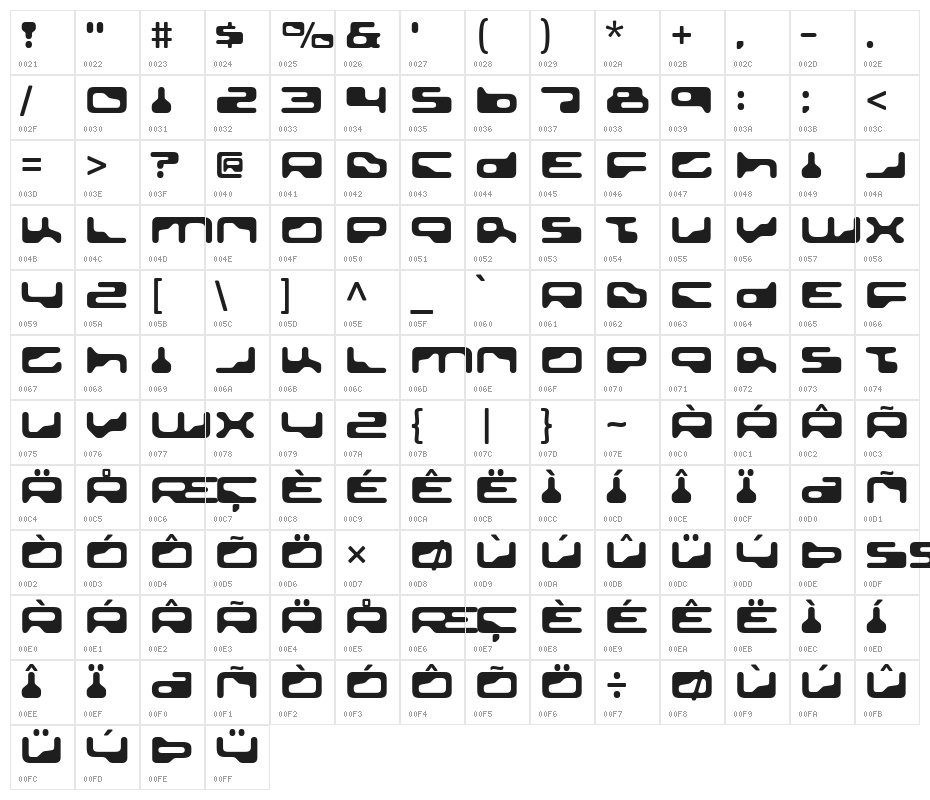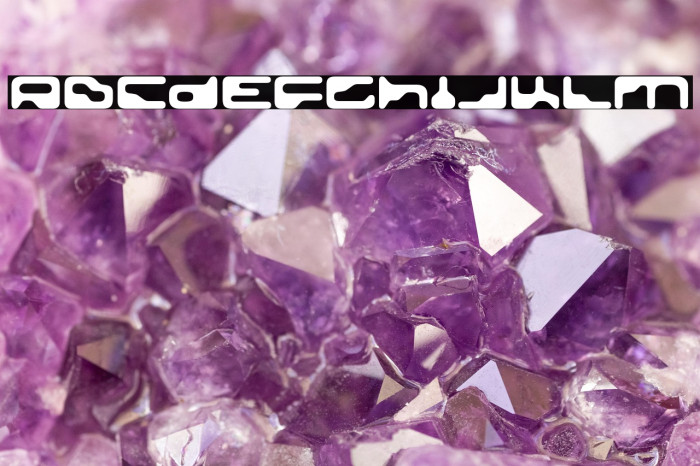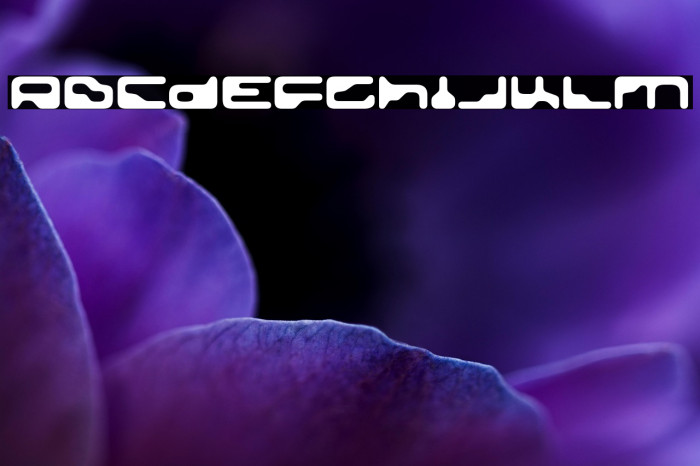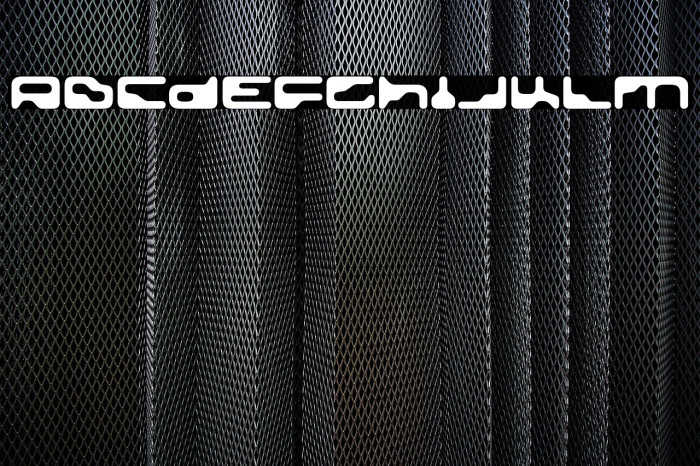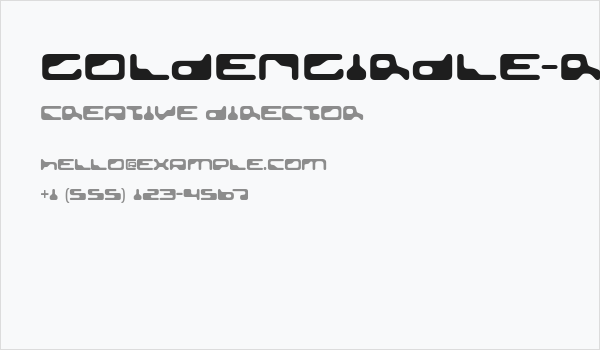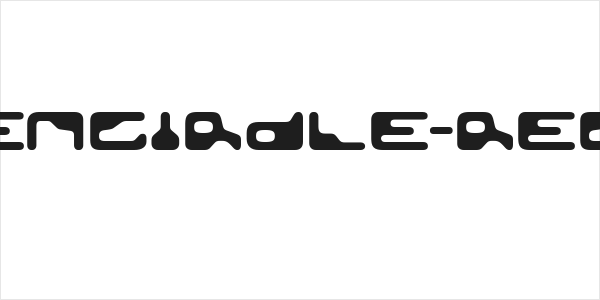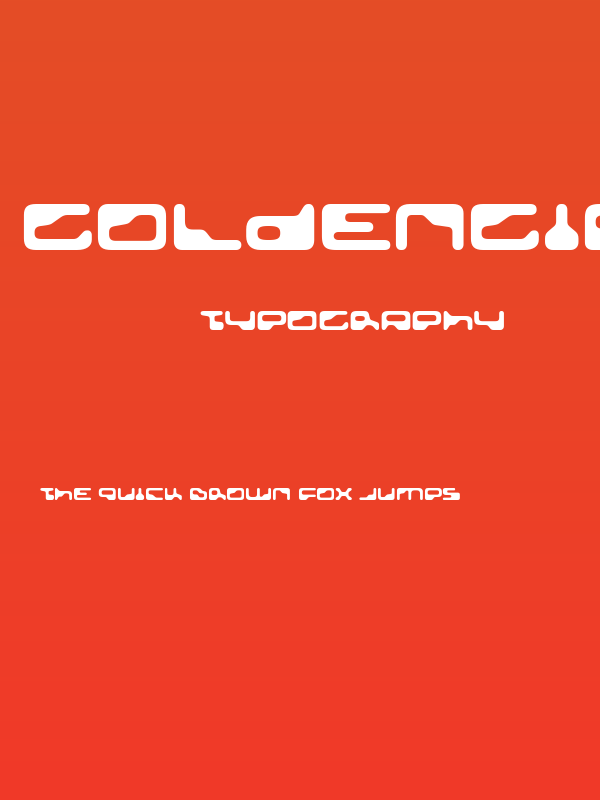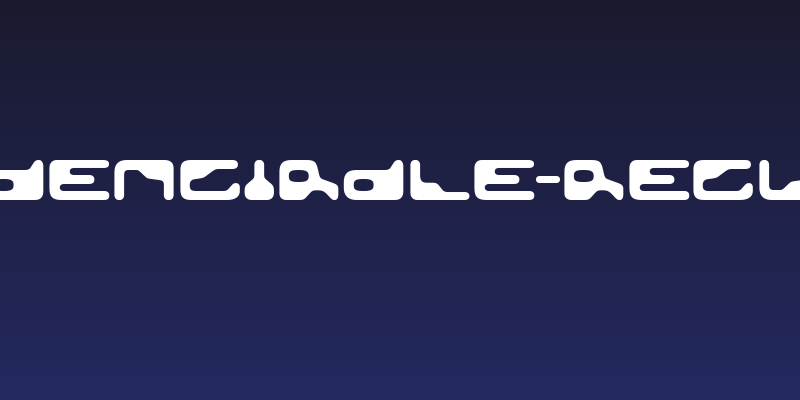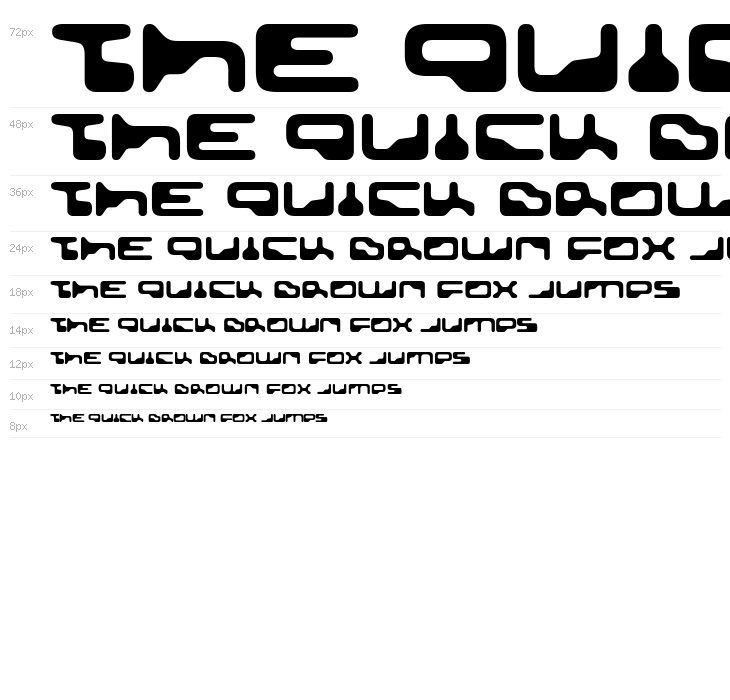
GoldenGirdle-Regular Font
GoldenGirdle-Regular Description
This font features a futuristic and geometric design, characterized by its bold and rounded letterforms. The characters are constructed with a consistent thickness, creating a uniform appearance that is both modern and eye-catching. The font's unique style is achieved through its use of negative space, which adds a distinctive touch to each letter. The numerals and special characters maintain the same design principles, ensuring a cohesive look across all glyphs. This font is ideal for projects that require a bold and innovative aesthetic.
| Proposed Projects | Ideal for sci-fi themed designs, technology branding, video game titles, and modern posters. |